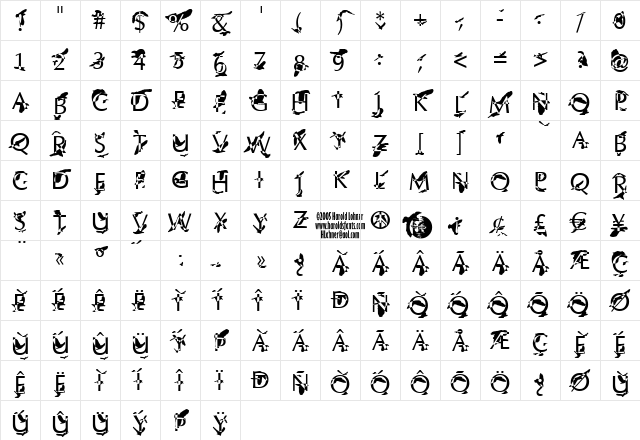
The Birds Regular Free Font
The Birds Regular
Copyright: THE BIRDS computer font v1.0 ©2005 Harold Lohner "  " www.haroldsfonts.com Inspired by the opening credits of Alfred Hitchcock's THE BIRDS (1963), designed by James S. Pollak.
Design Context for The Birds
The Birds is a composed and adaptable typeface that performs quietly and consistently across a wide range of design contexts.